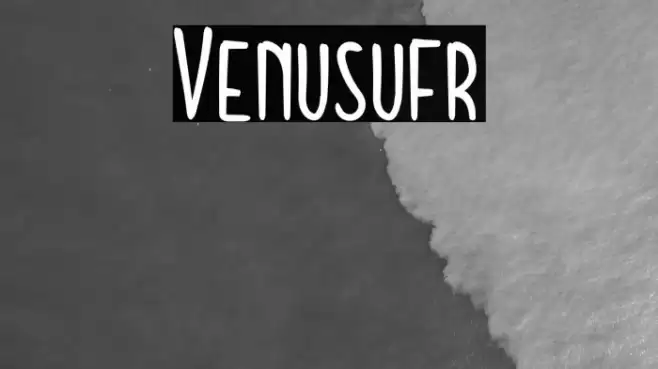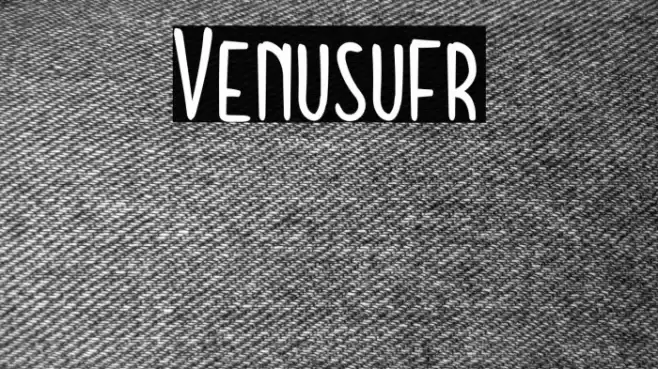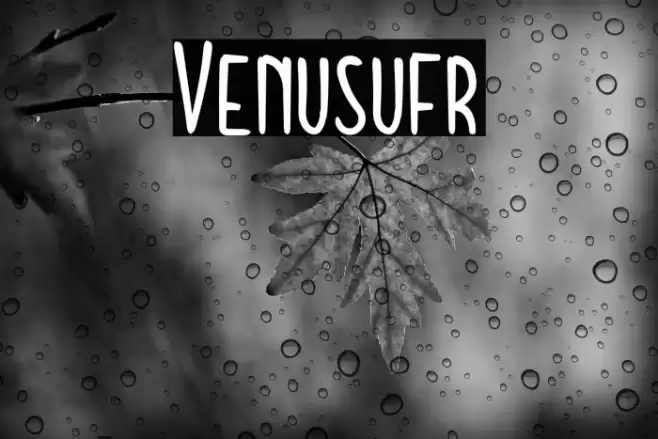
Venusufr Font
Venusufr Description
This font features a playful and rounded style, characterized by its smooth curves and consistent stroke width. The uppercase letters are tall and slightly narrow, giving a modern yet friendly appearance. The lowercase letters maintain the same rounded aesthetic, ensuring readability and a cohesive look. The numerals and special characters follow the same design principles, making them easily distinguishable while maintaining uniformity across the set. This font's overall style is approachable and versatile, suitable for various design needs.
A playful, rounded font with consistent stroke width and modern appeal from Uncategorized fonts.
- Proposed Projects: Ideal for children's books, playful branding, casual invitations, and social media graphics.
- Use Case: Headlines, Logos, Social Media